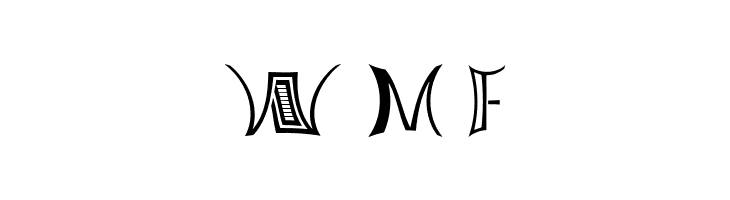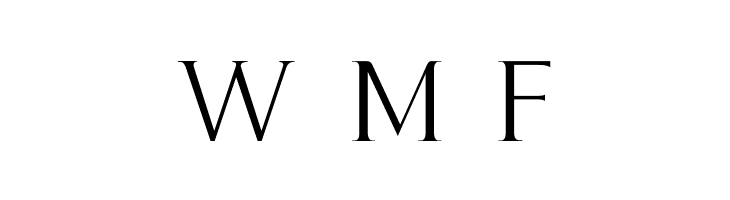
Mintsoda-Concave Font
A classic serif font with elegant strokes and pronounced serifs.
ConcaveTuscan Beveled Font
A bold, decorative font with beveled edges and a vintage, three-dimensional style.
ConcaveTuscanBeveled Font
A bold, decorative font with a beveled, three-dimensional effect.
Steam Concave Regular Font
A dynamic and artistic concave font with bold, fluid characters.
Concave Frames Regular Font
A bold, geometric font with concave frames around each character.